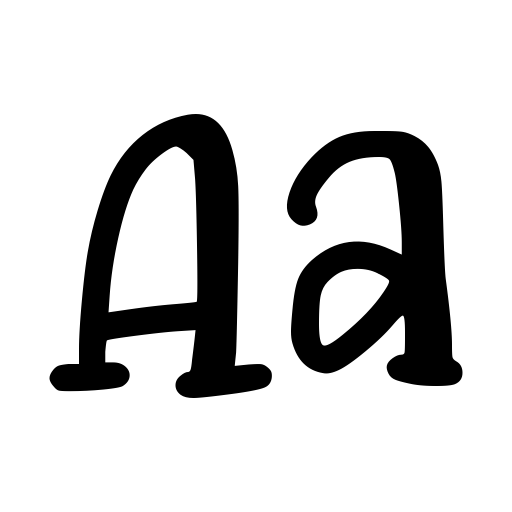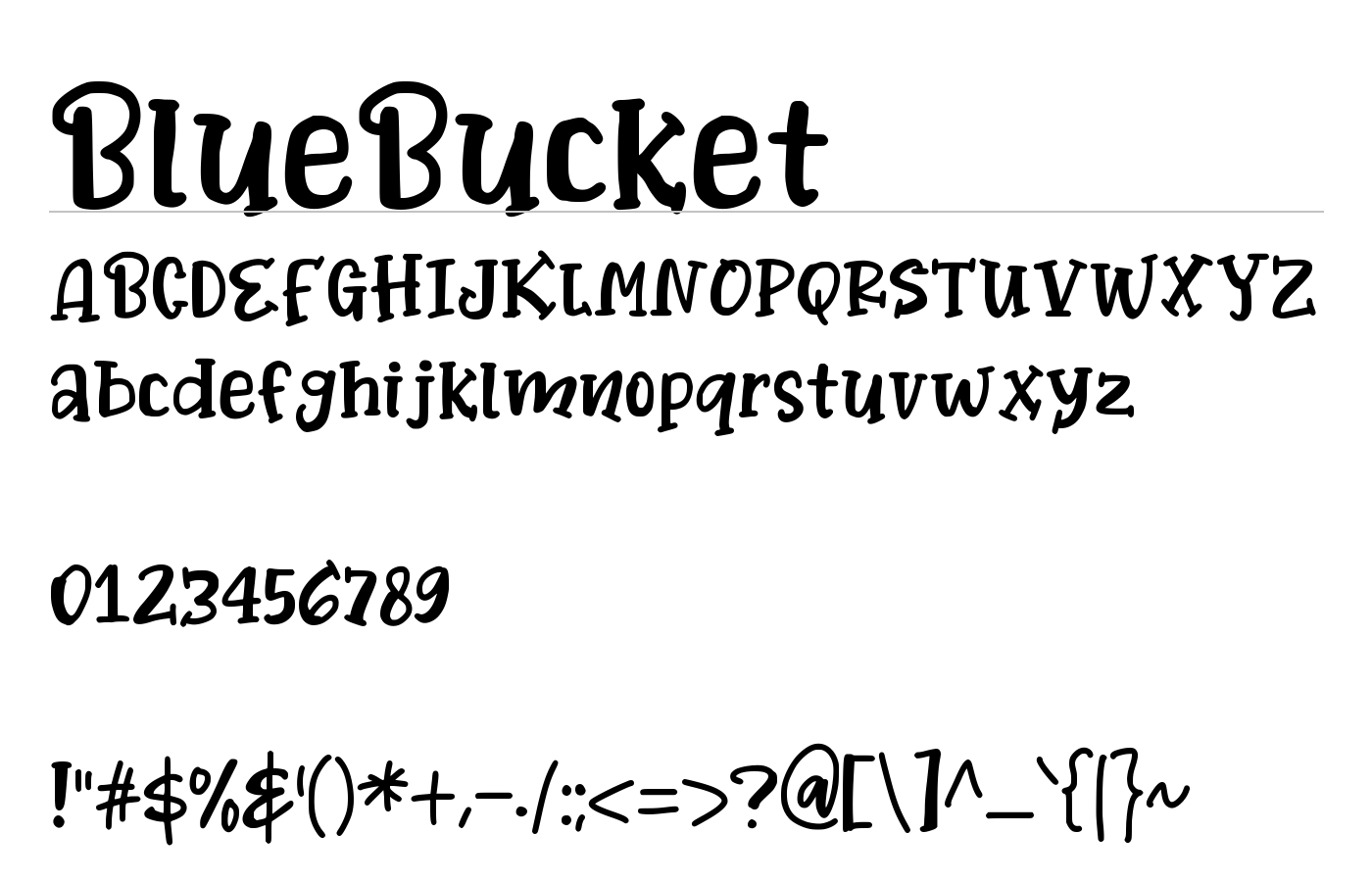
BlueBucket is a friendly, playful handwritten font with a casual, slightly quirky style. Its lively strokes and uneven letterforms give it an approachable, informal feel, making it perfect for creative projects, children's materials, or any design that wants to convey warmth and personality. This font works well for headlines, logos, and packaging where a fun and personal touch is needed.